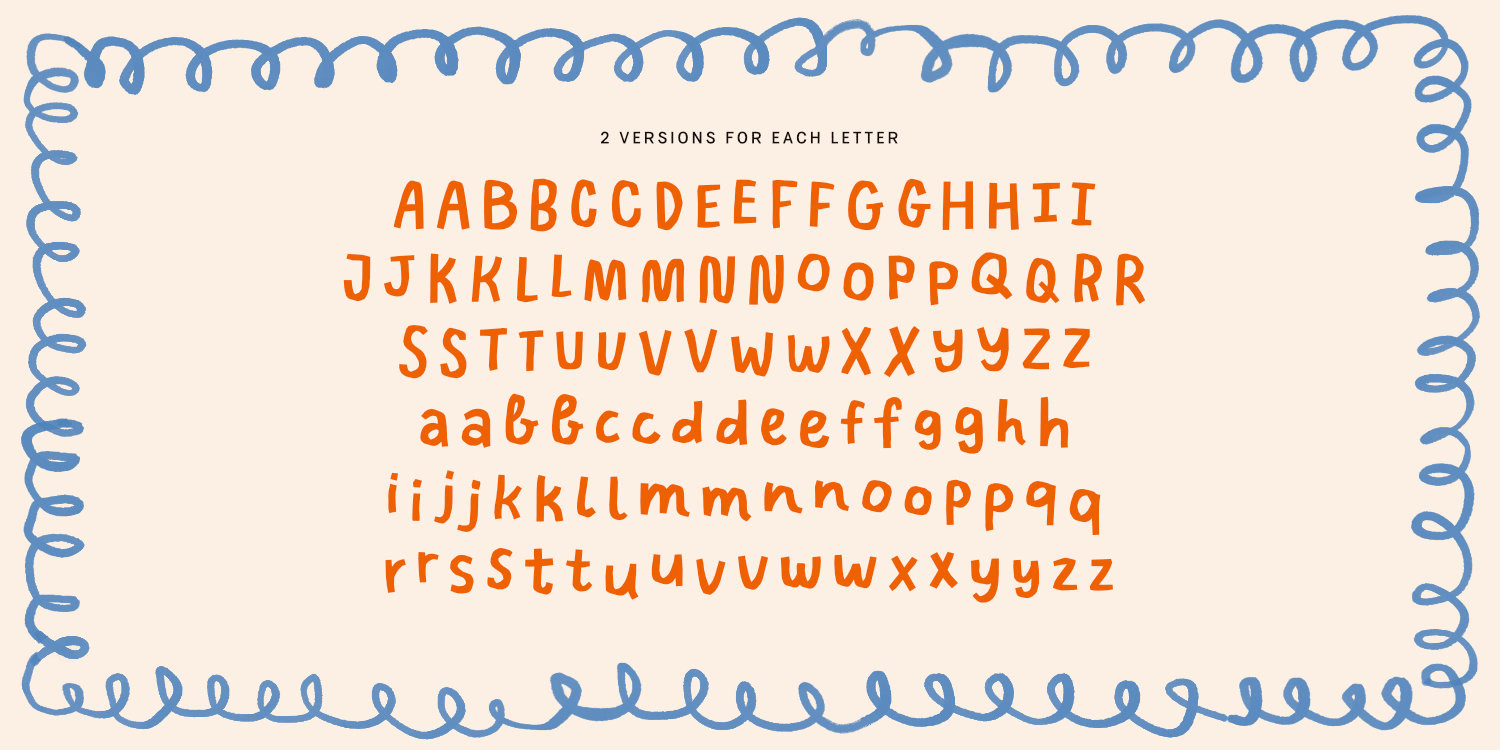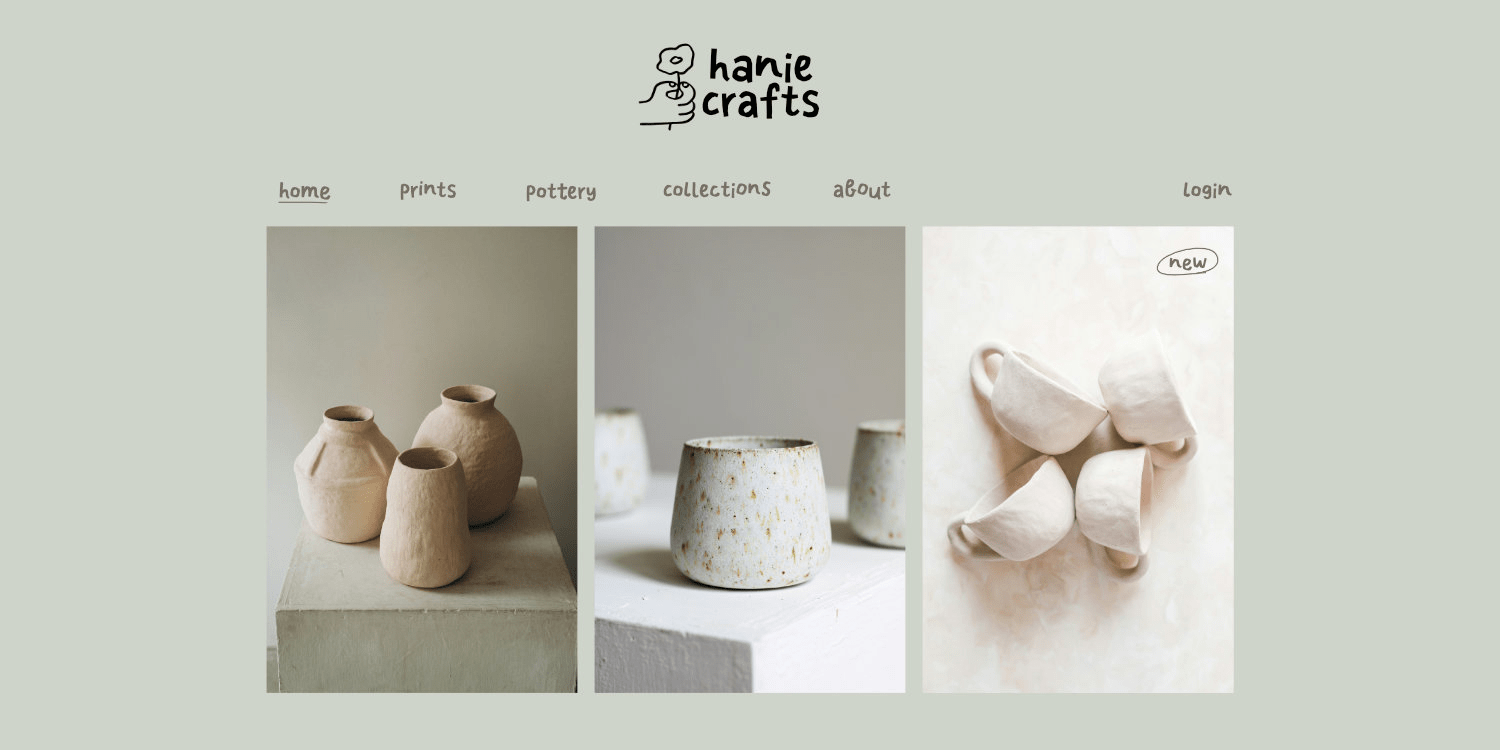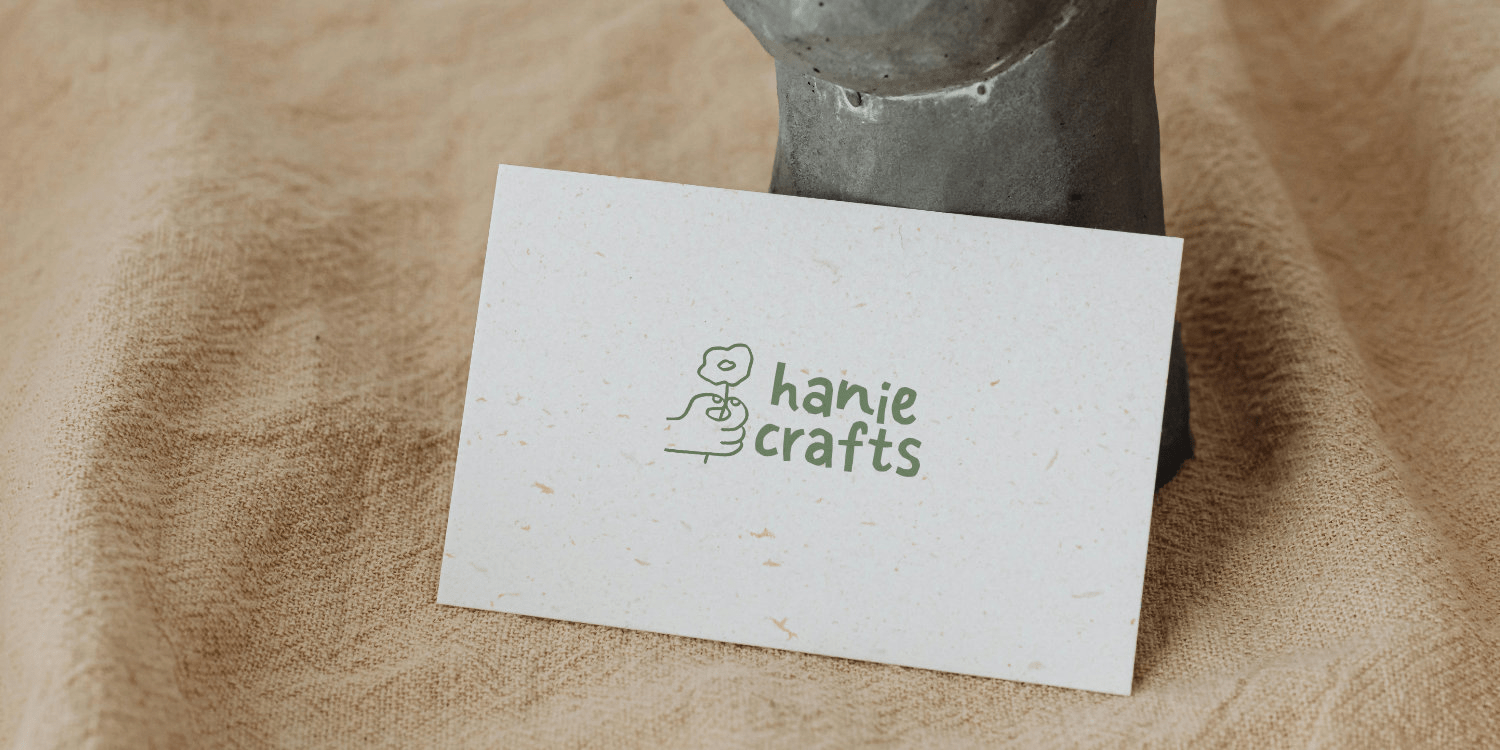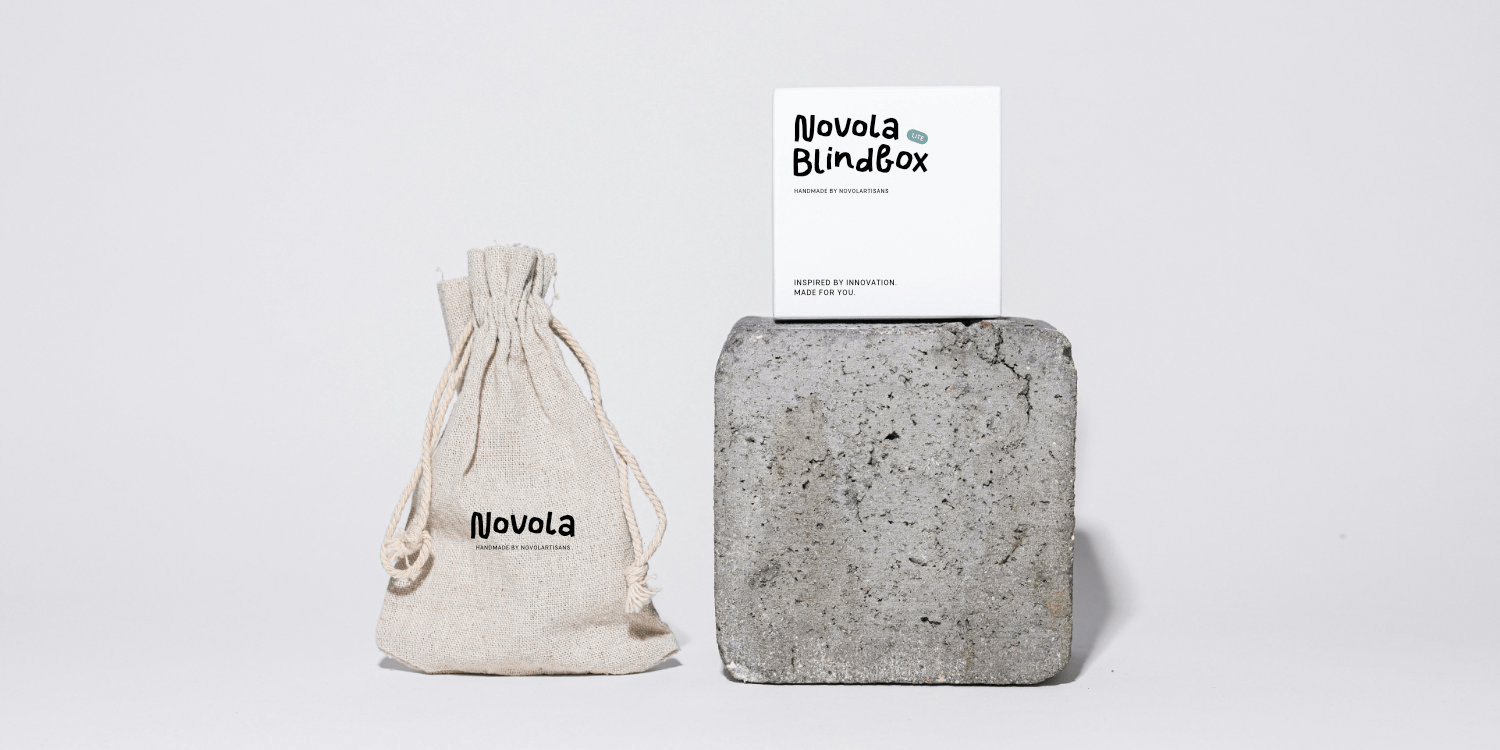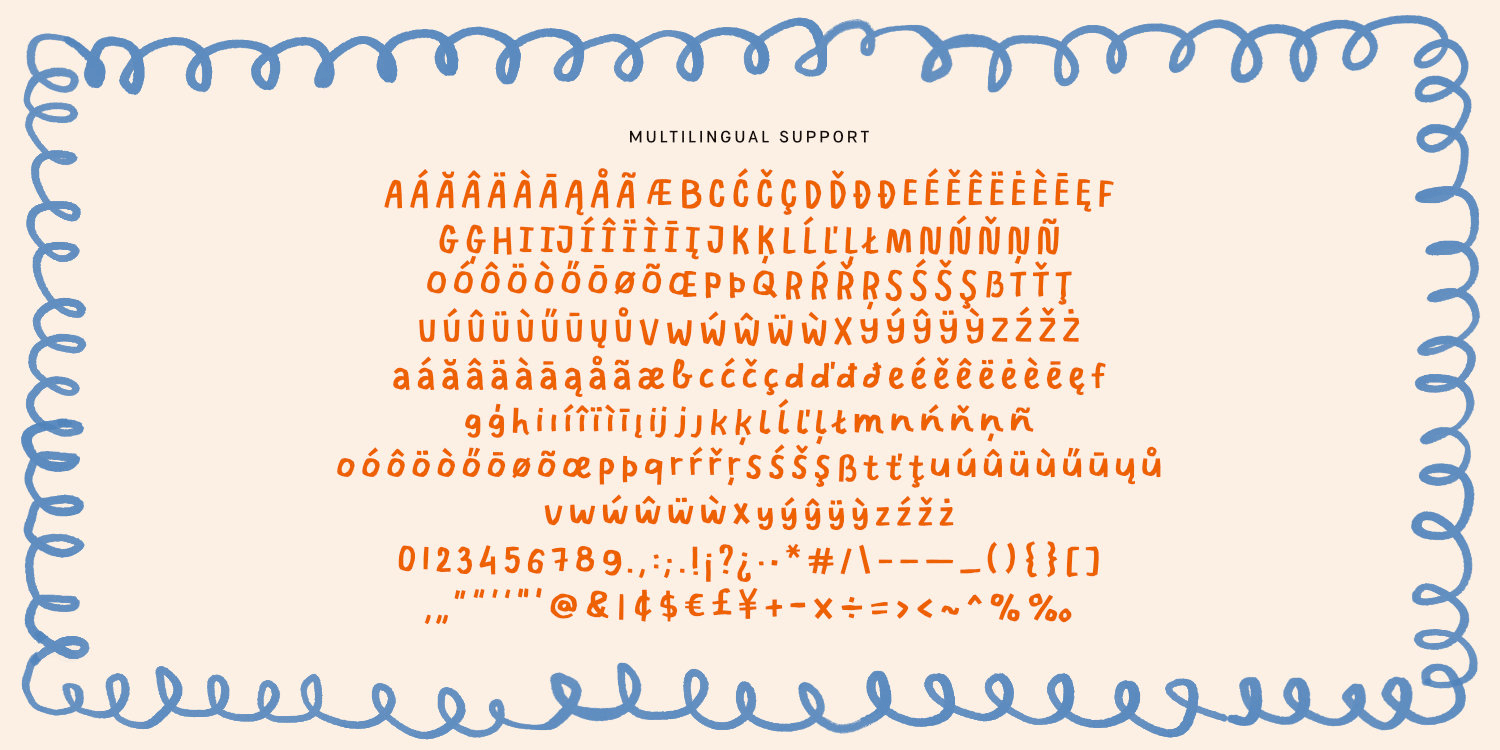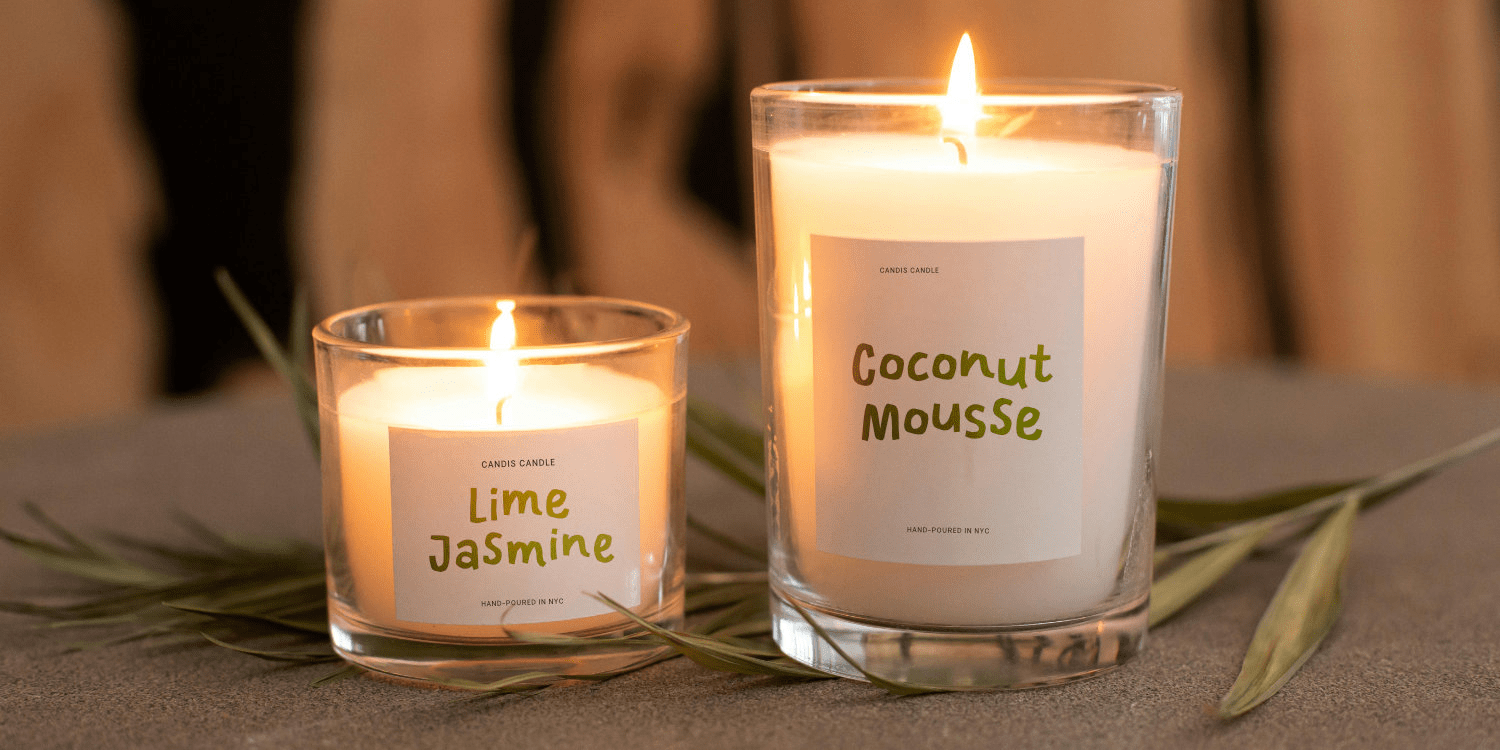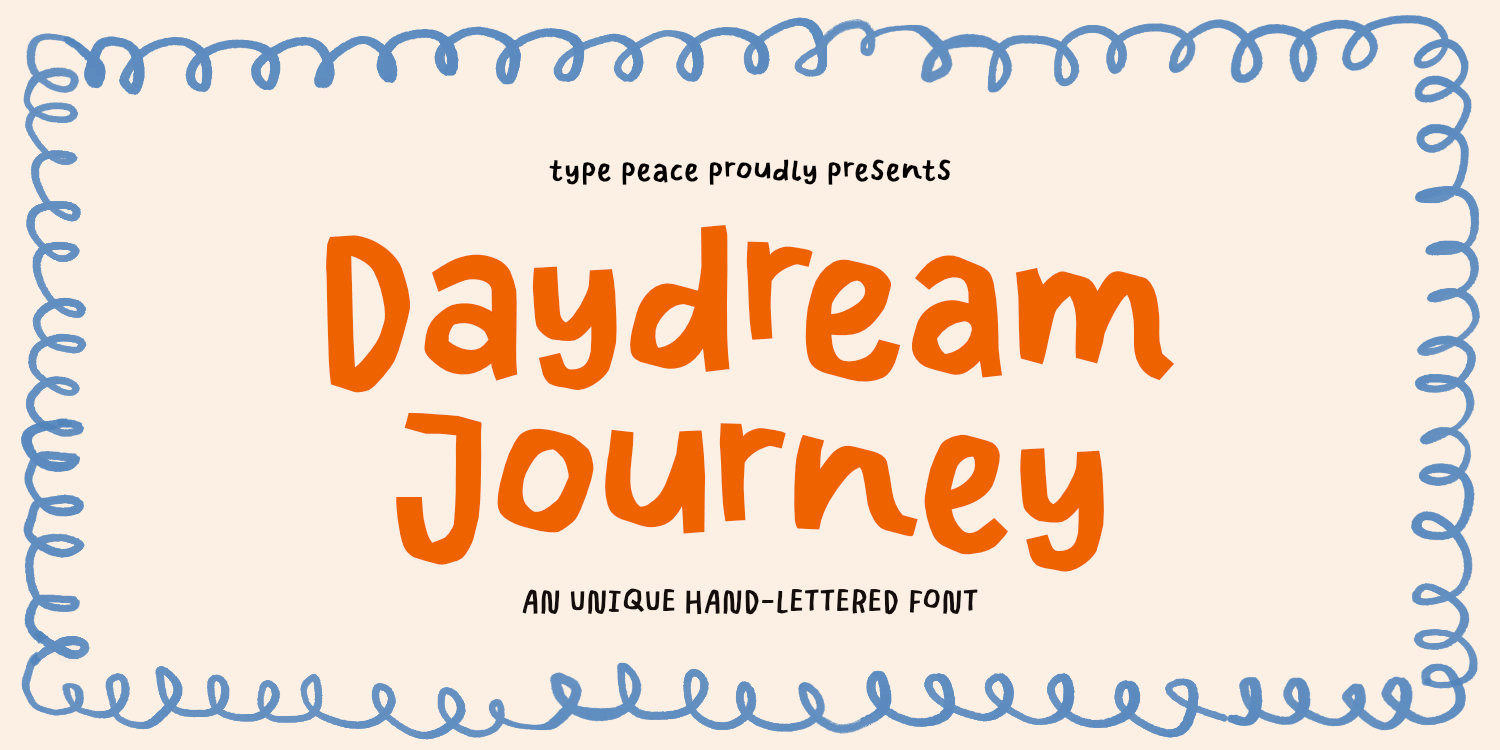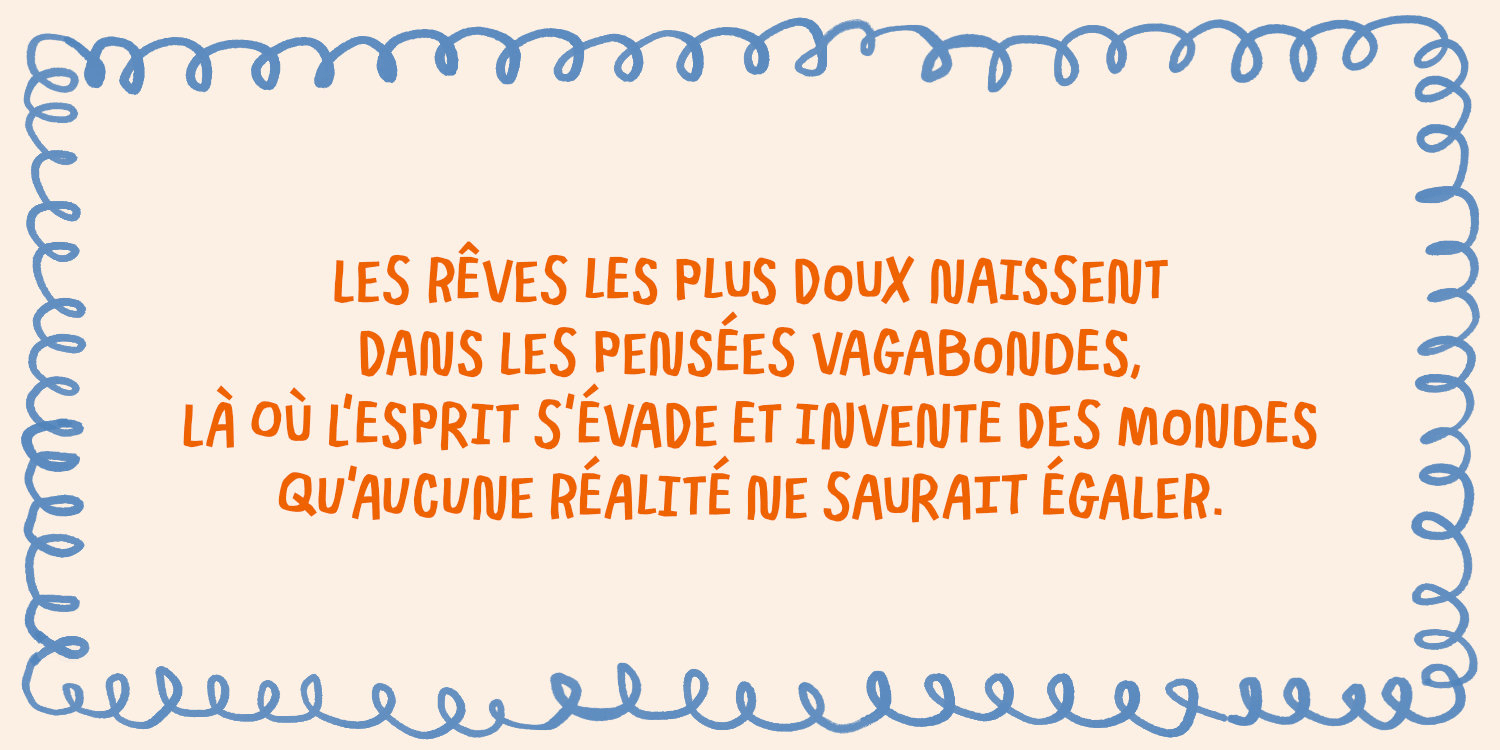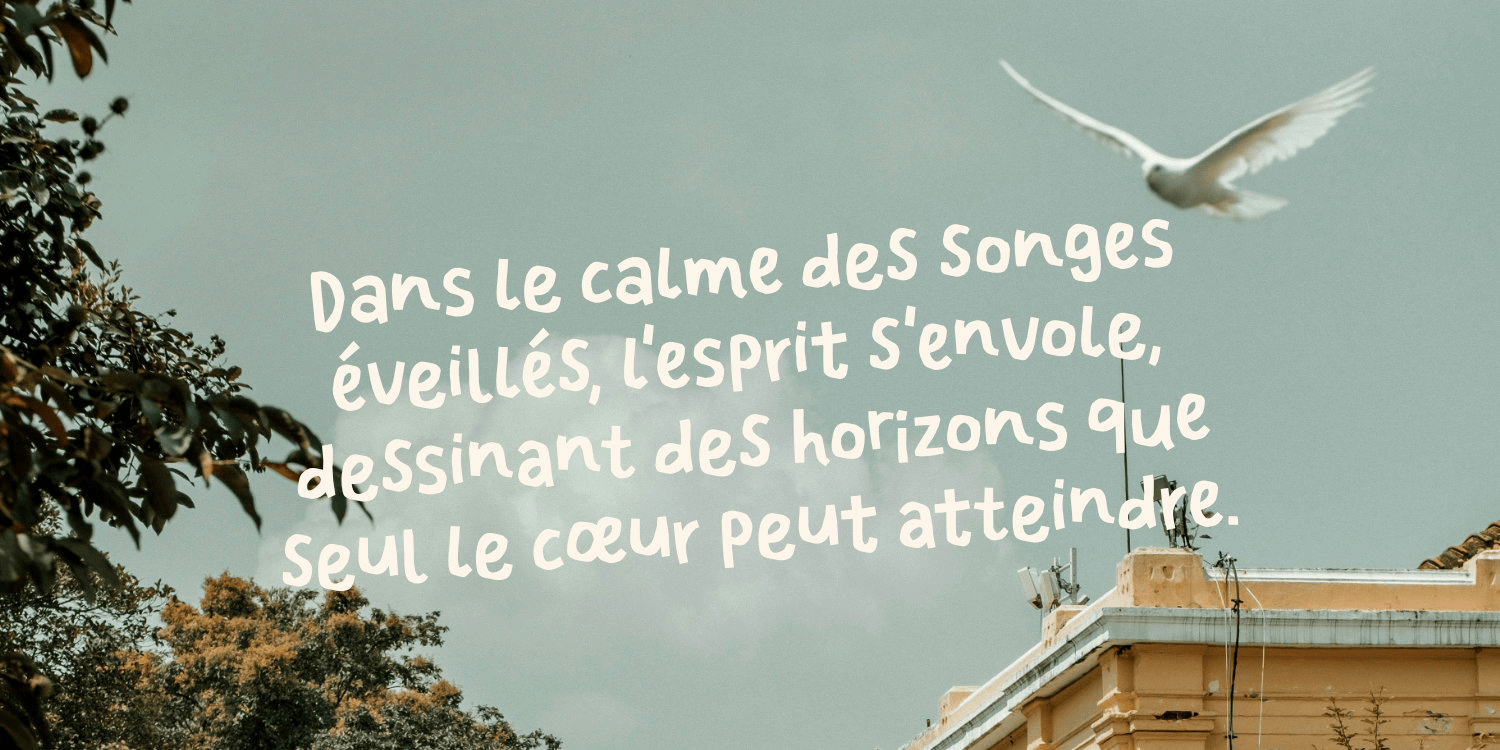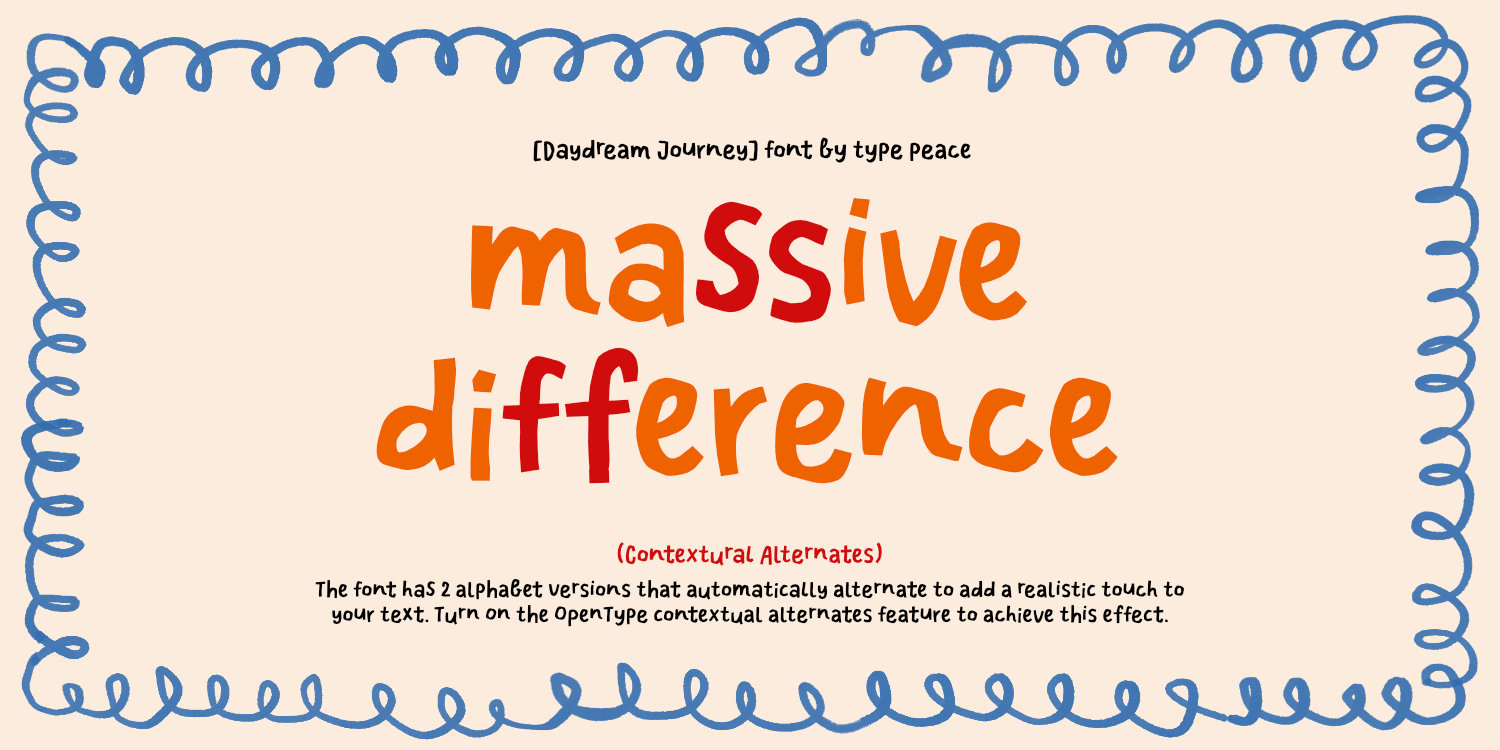
Daydream Journey
Font Family by type peace
Daydream Journey is a multilingual unique handmade typeface inspired by the charm of crafts and the playful edges of papercut shapes. Perfect for adding a personal, artisanal touch to your designs, from stationery to branding.
Enable the OpenType Contextual Alternates feature to alternate between different letter versions, giving your text an authentic and dynamic feel.
Font features:
• 2 versions for each letter
• Number, punctuations and symbols
• Multilingual support
• Opentype contextual alternates, stylistic set features
Script: Latin
Supported Languages: English, Western European, Central European